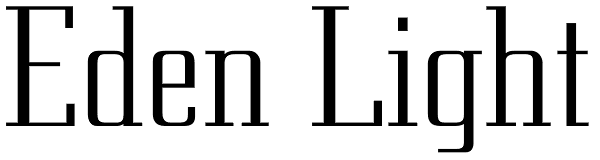
Eden CT
Eden Light, originally designed by the American type designer Robert H. Middleton in 1934, was commissioned by Publish magazine for a redesign in 1990. When I found a specimen of Eden Bold a couple years later, I decided to digitize it also...
Eden Bold
Eden Light
Eden Medium